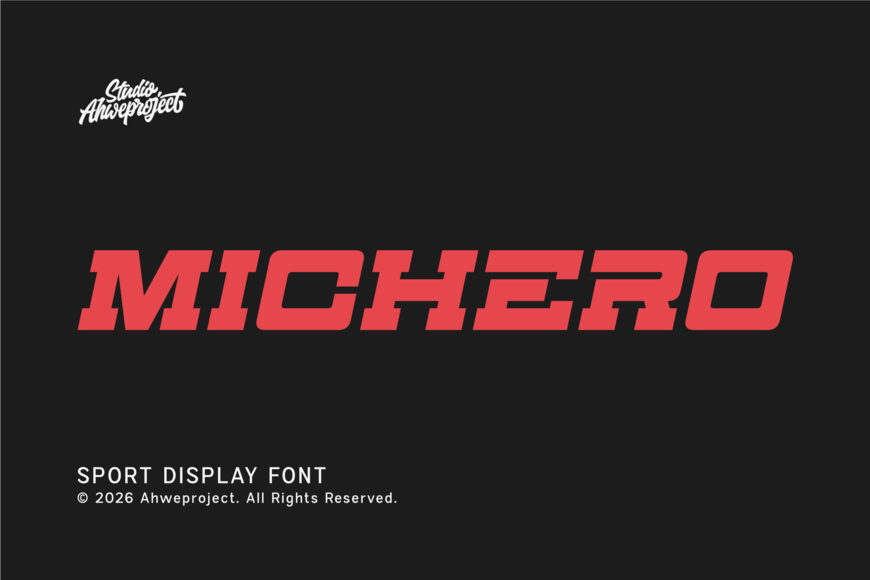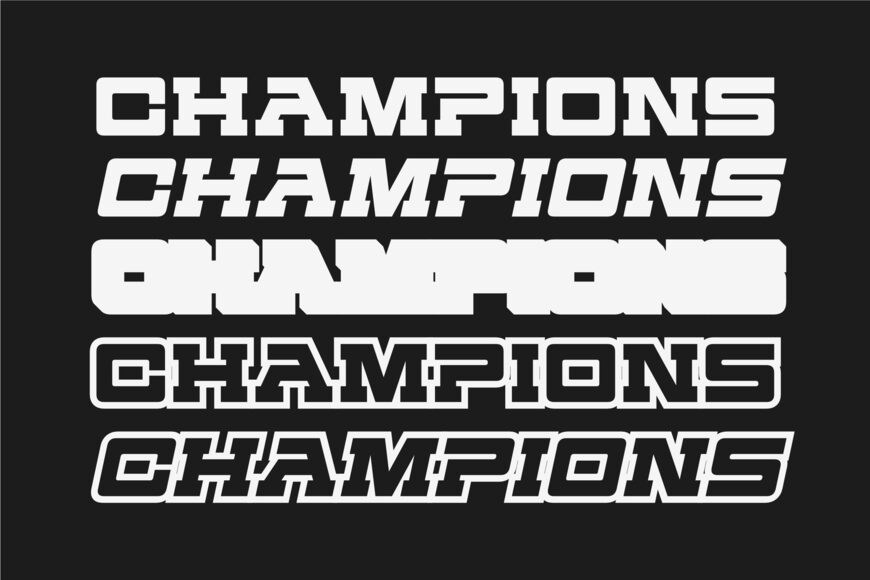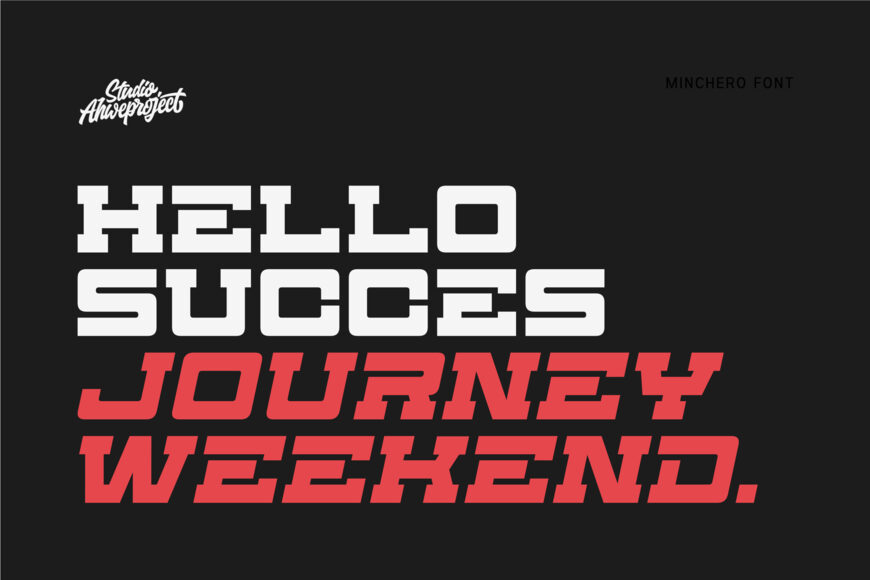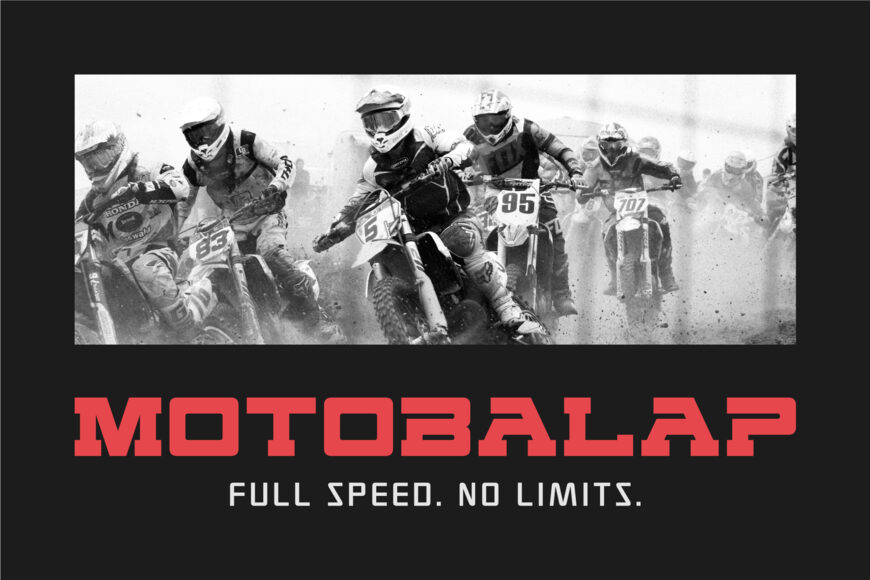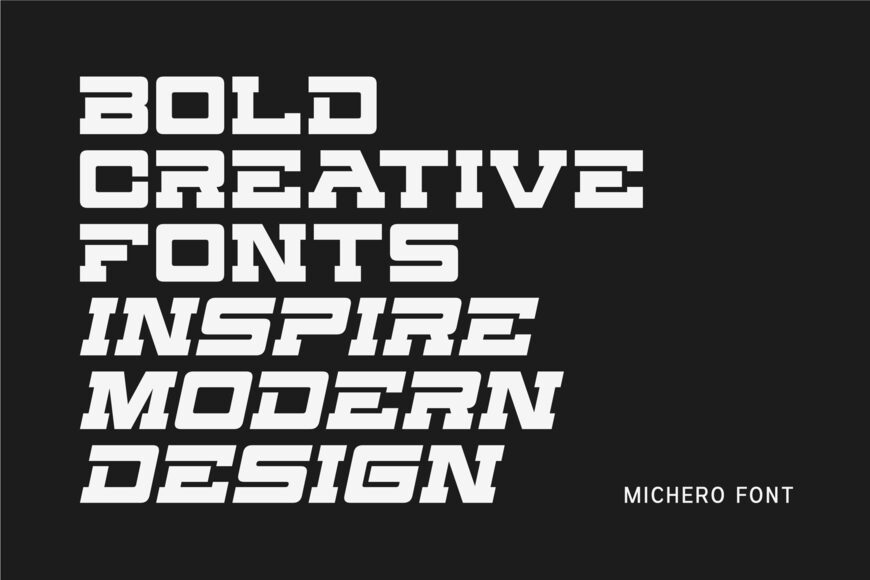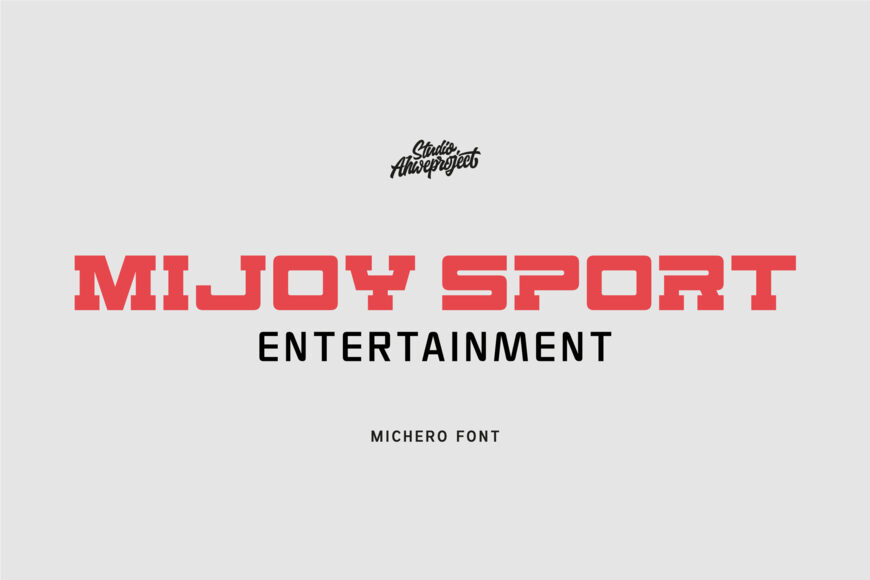
Michero Font
Michero is a bold, modern sports display font built to convey energy, strength, and motion. Its wide, heavy letters feature geometric forms, crisp horizontal cuts, and softly rounded corners, creating a distinctive look that commands attention at large sizes.
With its sense of speed, competition, power, confidence, and futuristic performance, Michero suits motorsport, racing, sports, automotive, gaming, esports, and technology designs. It is ideal for logos, headlines, team branding, jerseys, posters, merchandise, packaging, banners, thumbnails, game titles, social media graphics, and promotional materials.